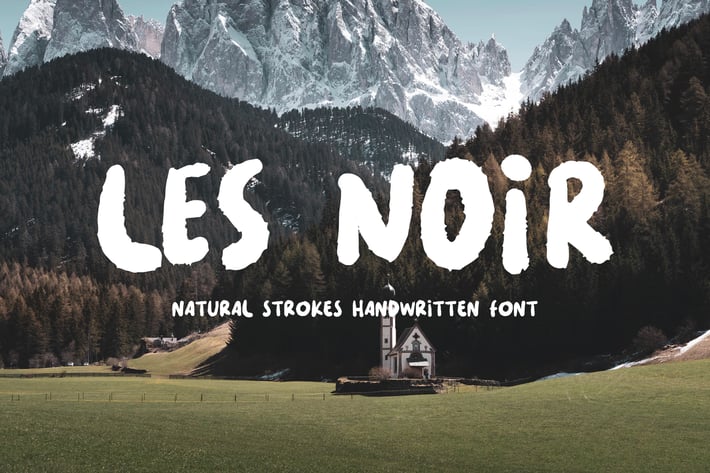
LES NOIR - Handwritten Font
LES NOIR is a youthful and fun font with organic look brush. This Eye-catching font will be perfect for medium and large display, but also work for smaller paragraph lines. You can use this font for flyer, poster, logo, social media post, advertising, website headline, and etc.
- All caps font with lower case alternative
- Use uppercase (caps) for standard character and lowercase for alternative, combine them to create awesome look!
- Complete standard display characters including ;  À Ä Å Ã Æ Ç É Ê È Ë Í Î Ì Ï Ñ Ó Ô Ò Ö Õ Ø Œ Š Ú Û Ù Ü Ý Ÿ